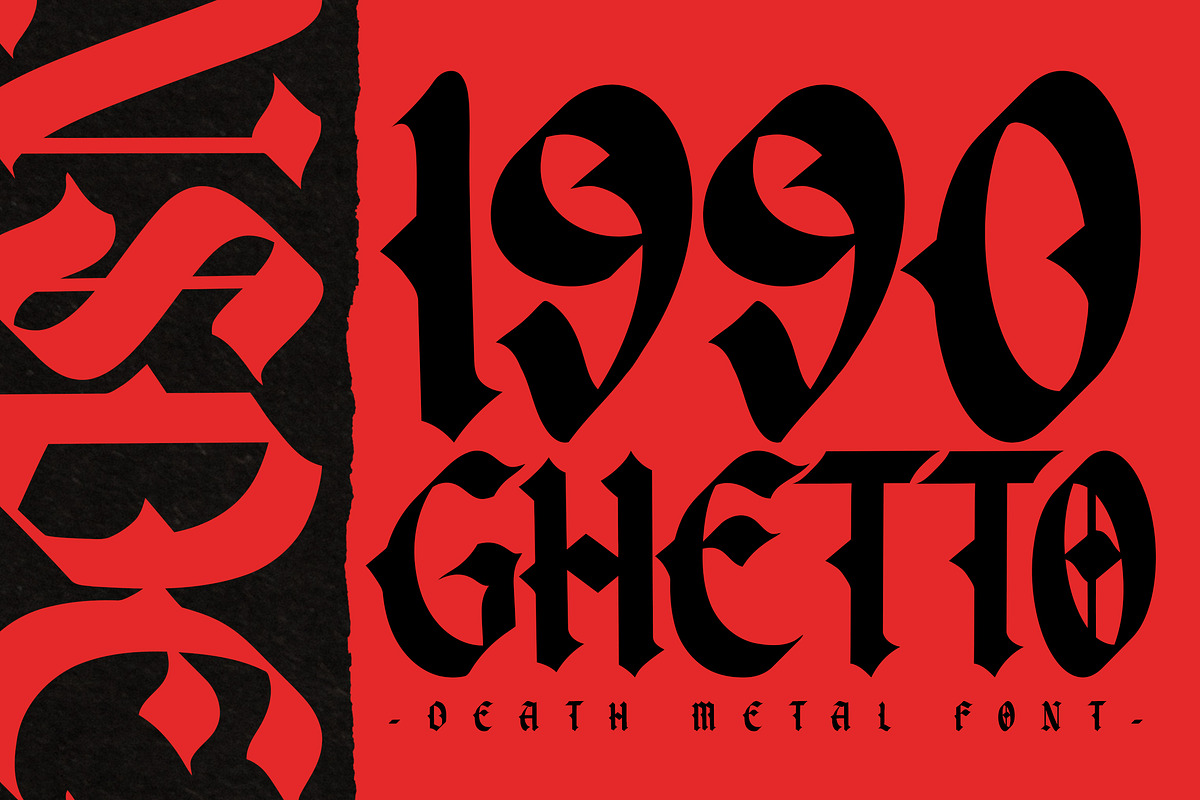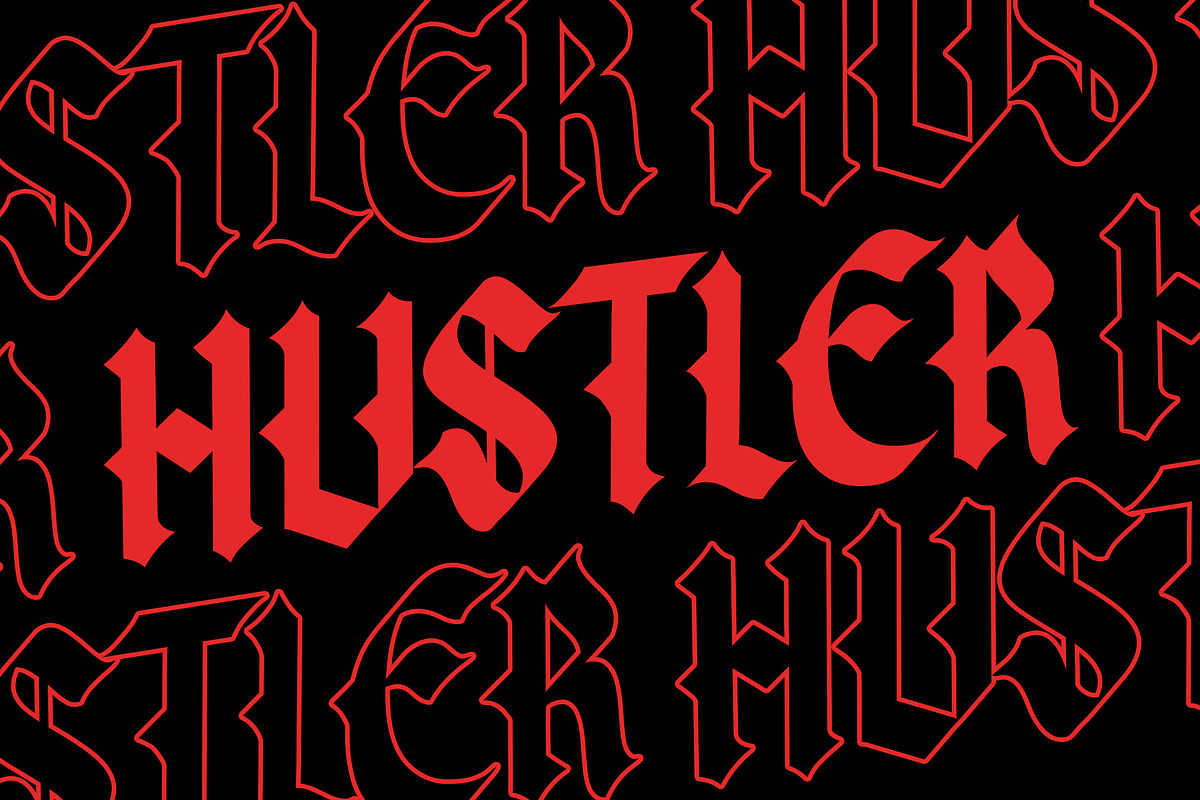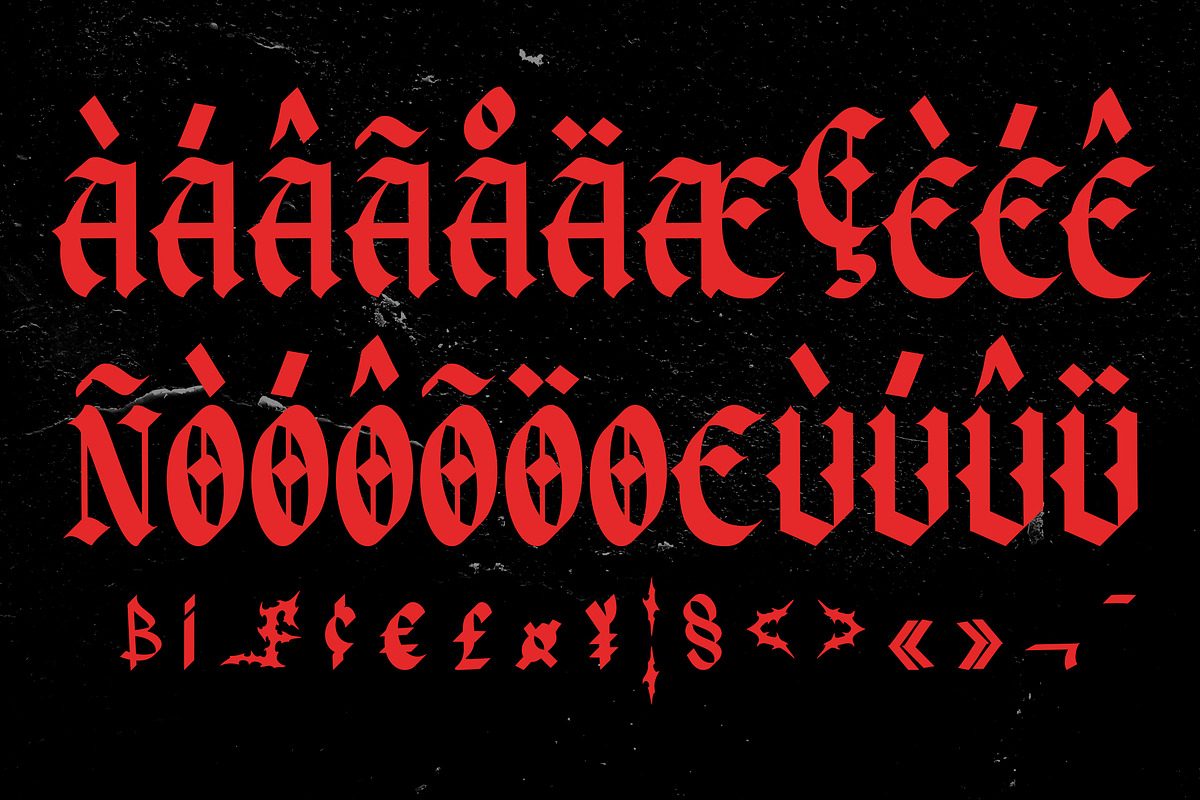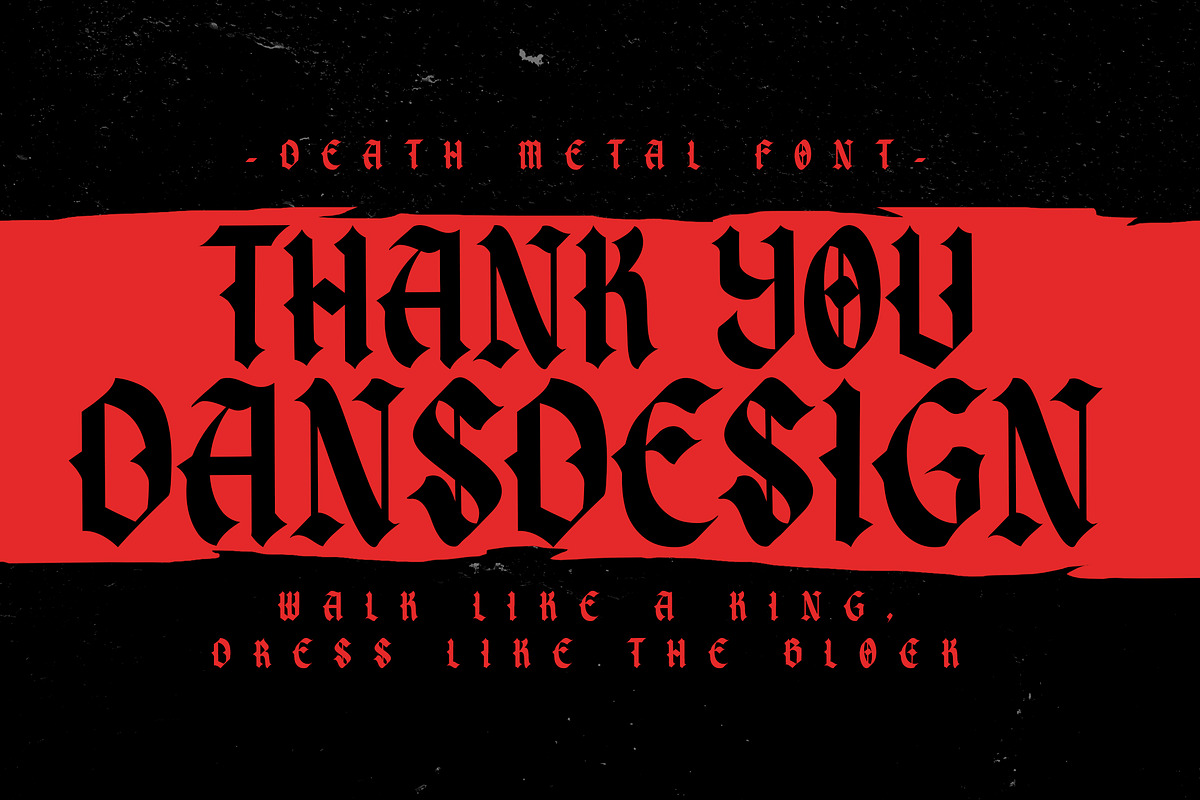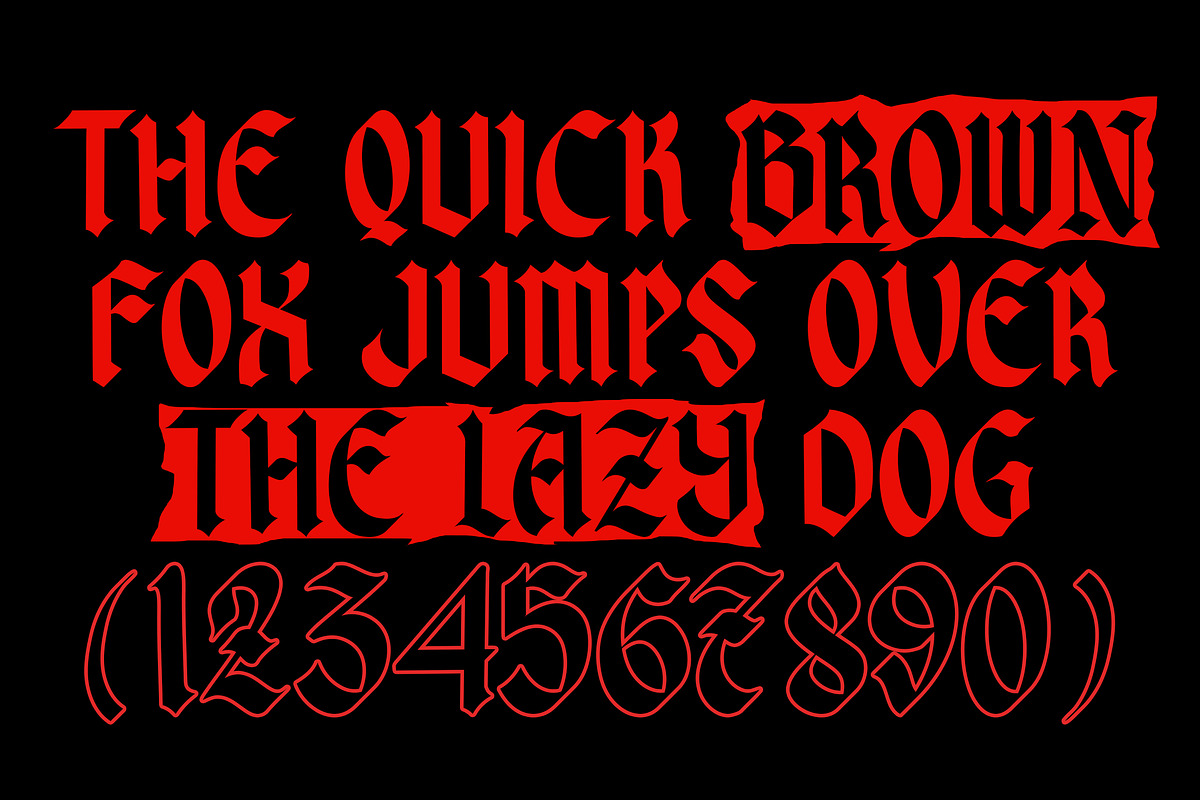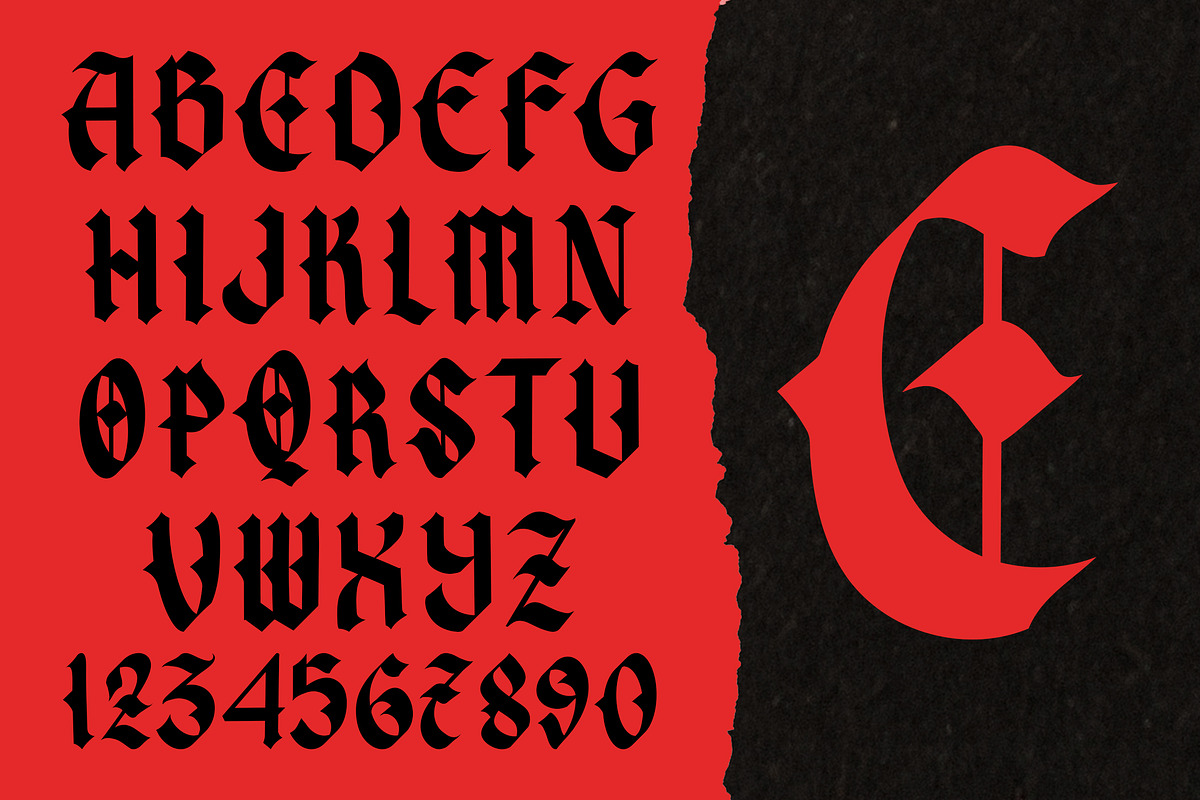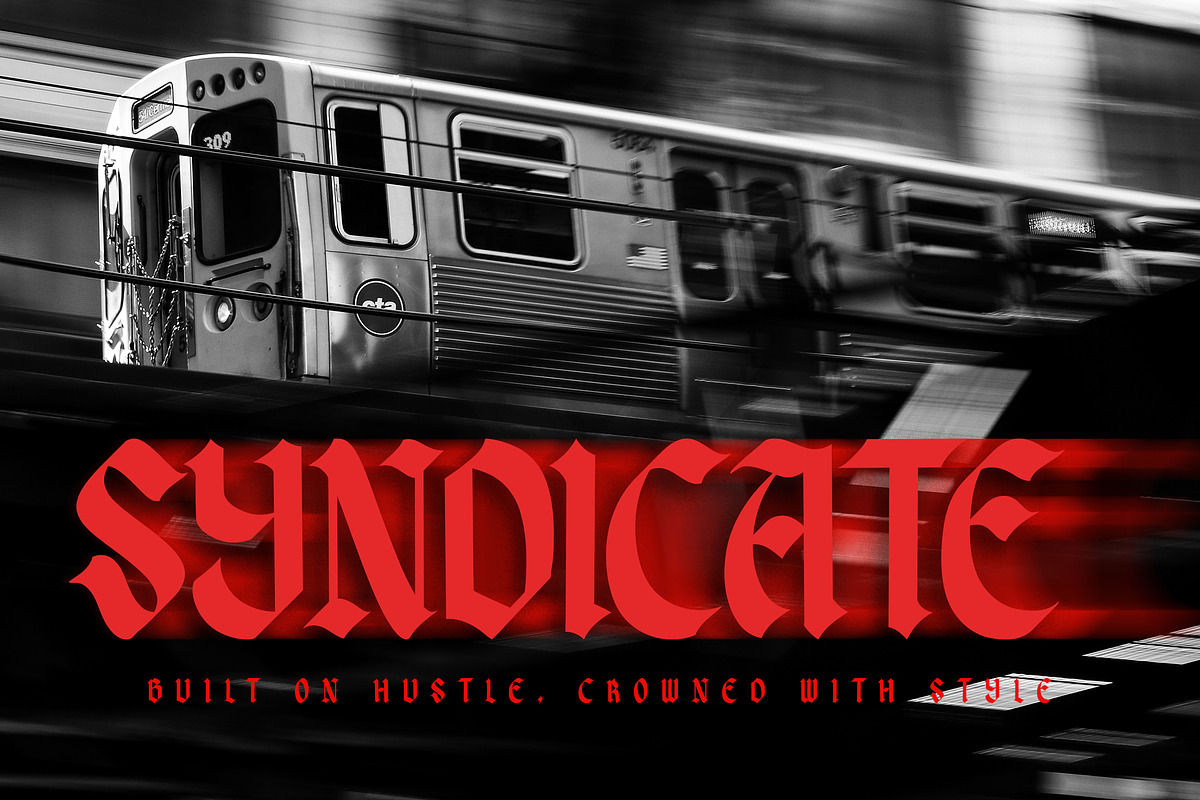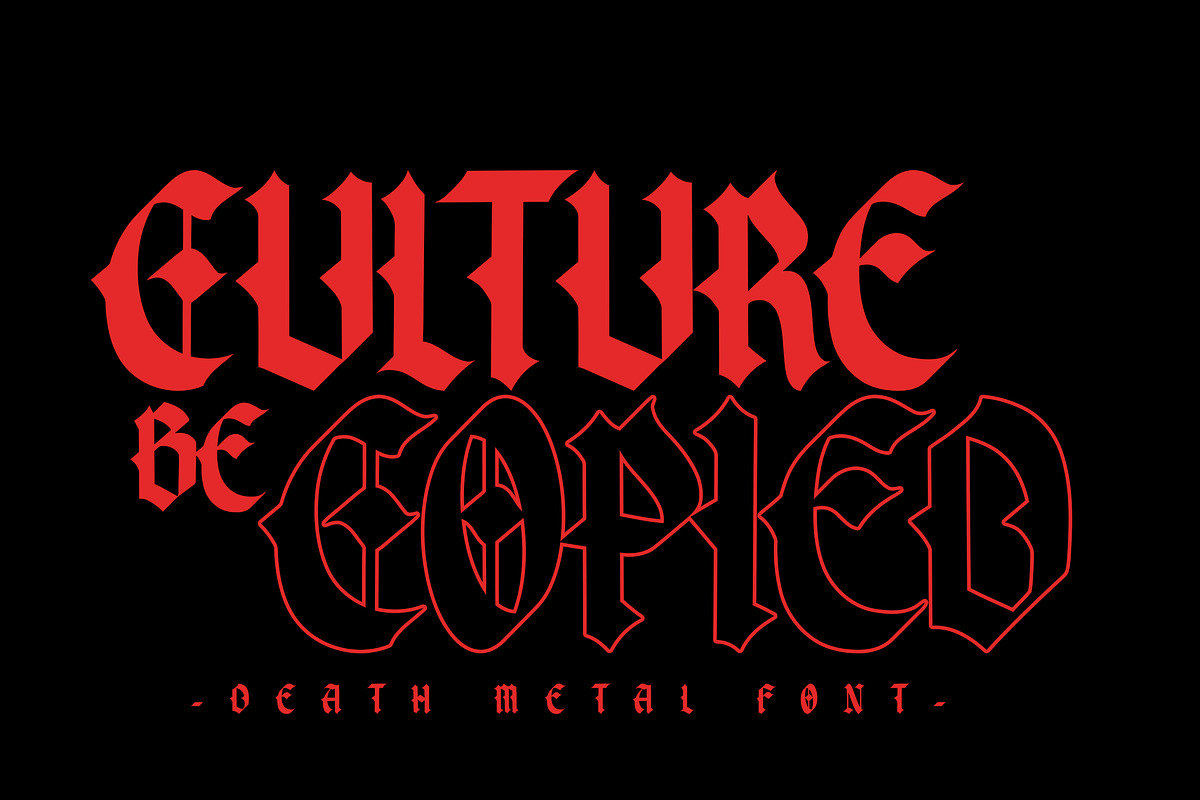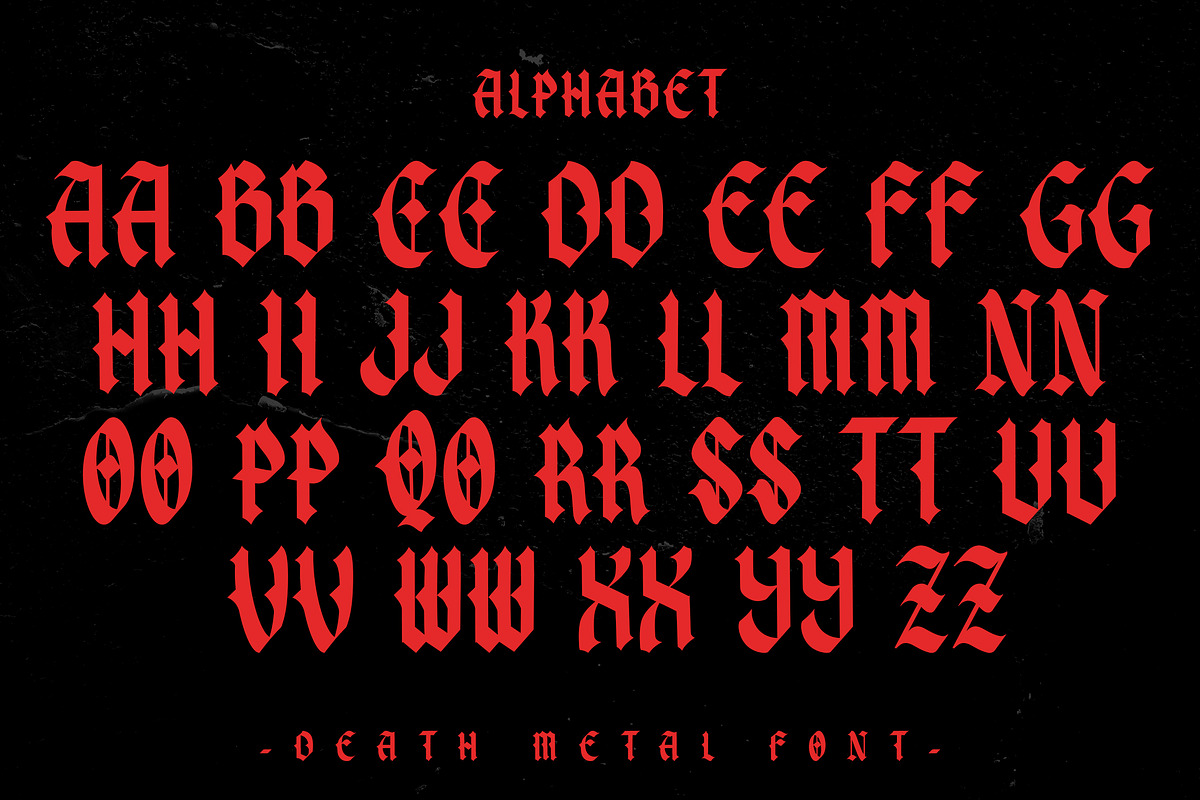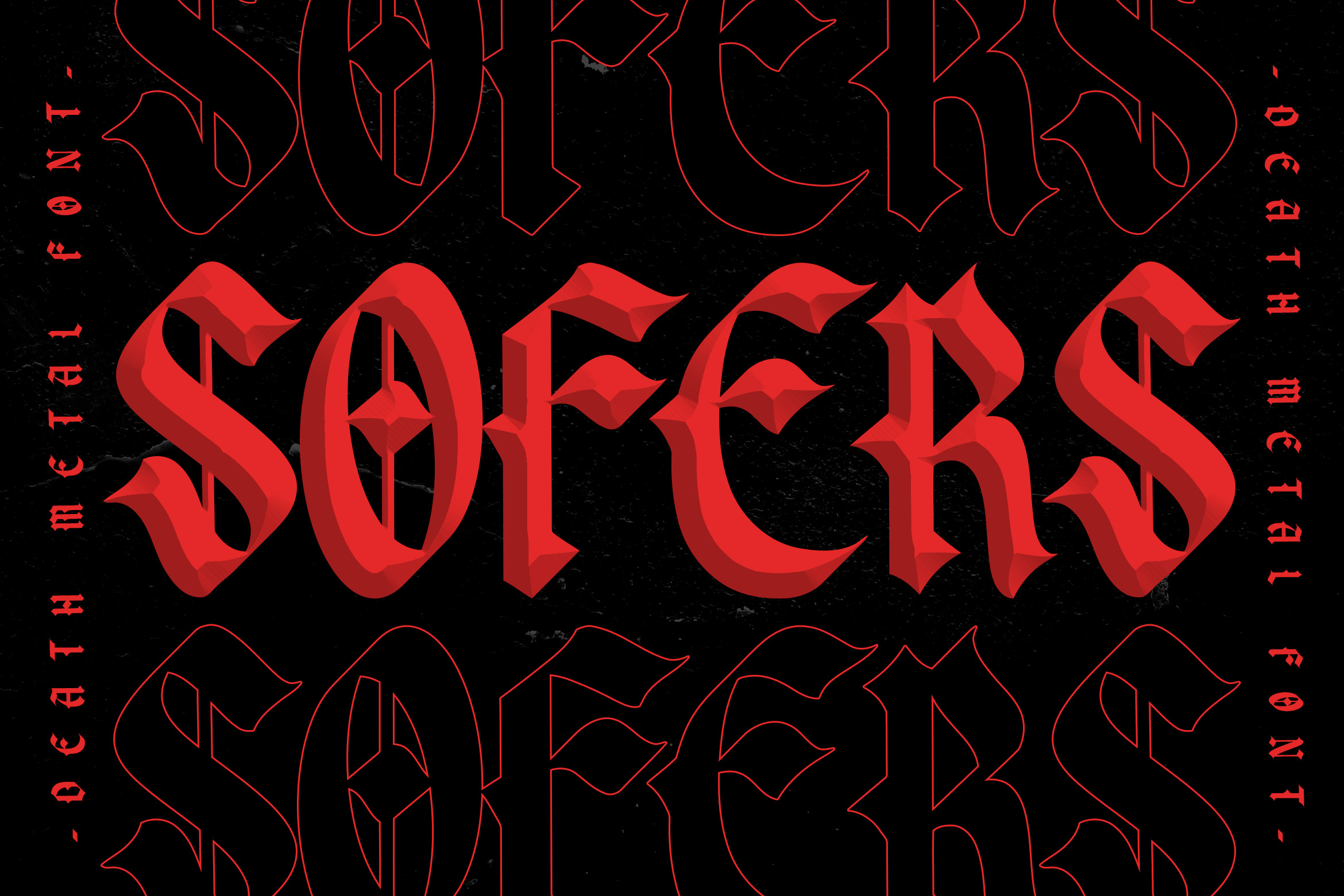
Sofers Vintage Blackletter Font
Soffer Vintage Blackletter Font is a refined and timeless typeface that blends classic Gothic elegance with a vintage flair. With balanced ornamentation, subtle texture, and well-defined letterforms, Soffer offers an antique aesthetic without sacrificing legibility. Ideal for logos, heritage branding, vintage posters, product packaging, tattoo art, and title work, this font includes accented characters (multilingual), numerals, punctuation, and is PUA-encoded for easy access. Use Soffer to bring a sense of tradition, sophistication, and old-world charm to your creative projects.